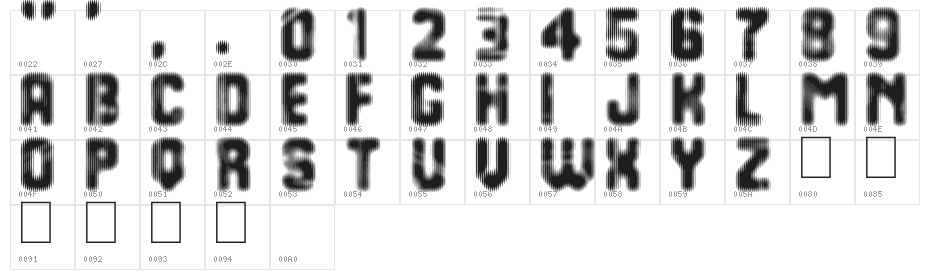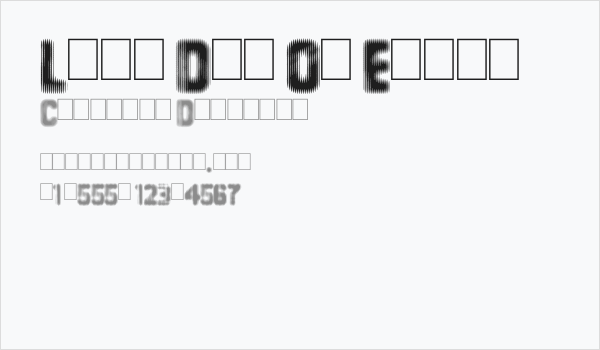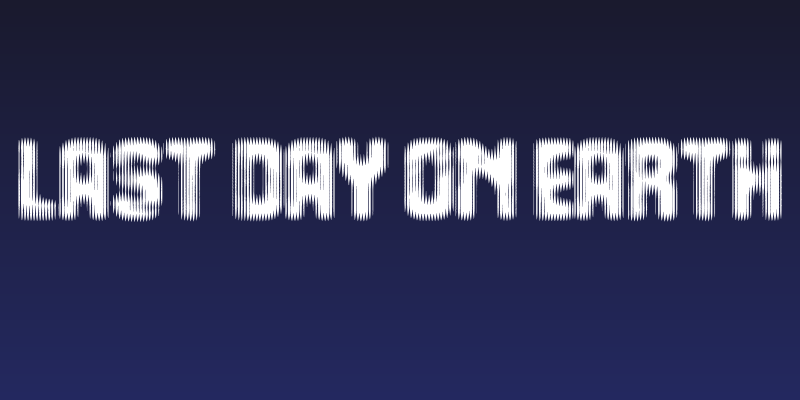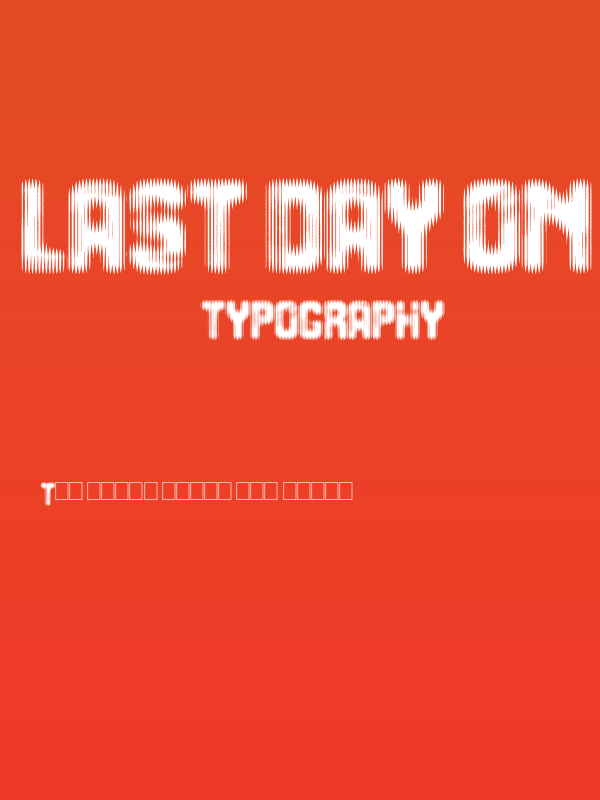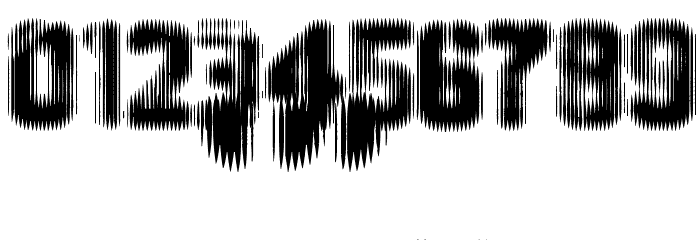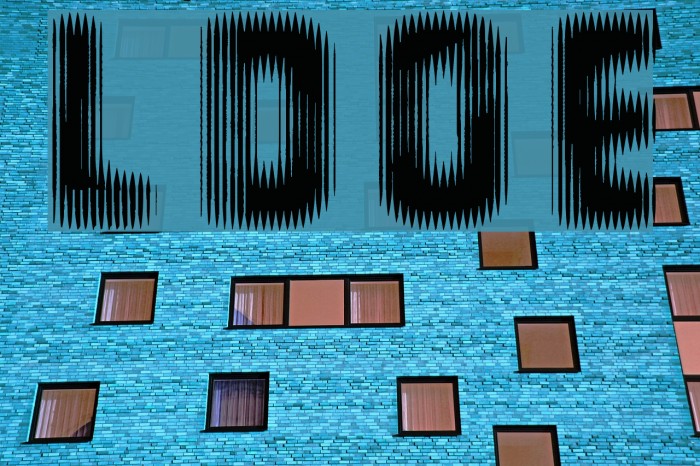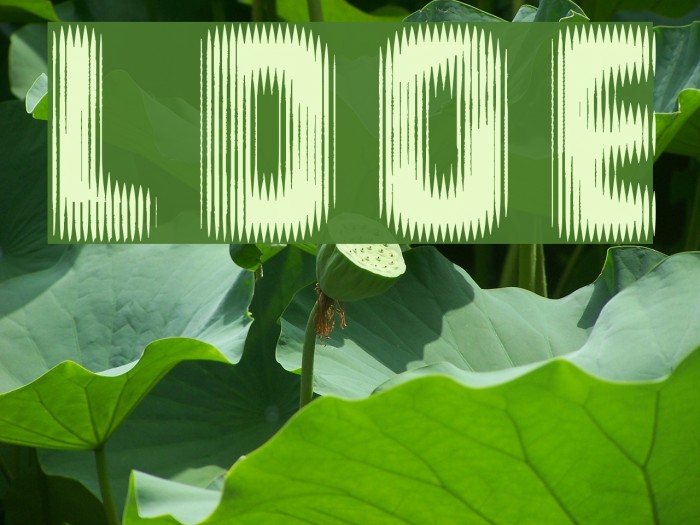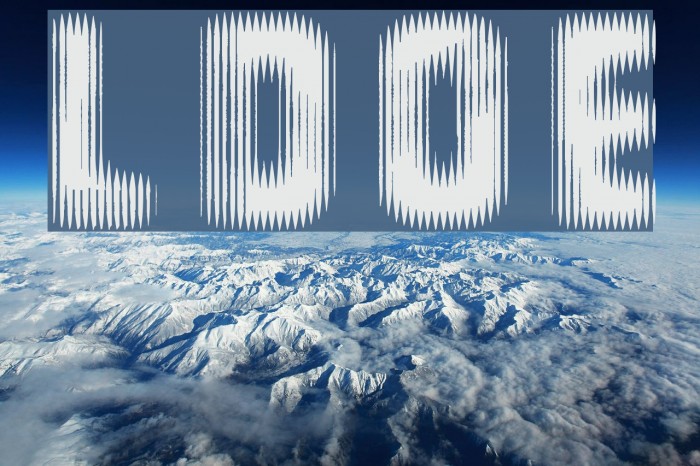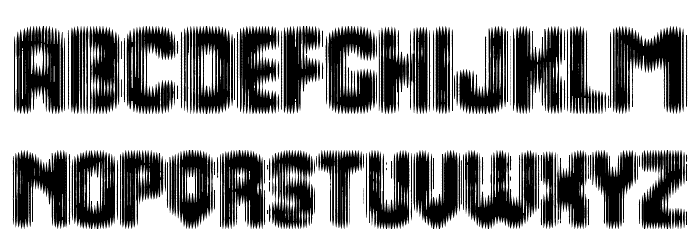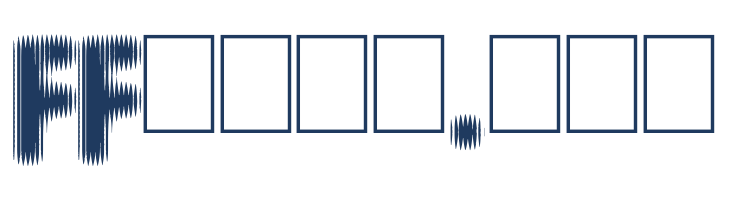
Last Day On Earth Font
This font features a unique, futuristic design with a high-tech aesthetic. Each character is composed of vertical lines that create a digital, glitch-like effect, giving it a sense of movement and energy. The uppercase letters are bold and striking, while the numbers maintain the same dynamic style. The overall appearance is both modern and edgy, making it ideal for projects that require a distinctive and eye-catching typeface. The font's design is particularly suited for themes related to technology, science fiction, or digital media.
| Proposed Projects | Ideal for tech-themed posters, sci-fi book covers, digital media branding, and video game graphics. |